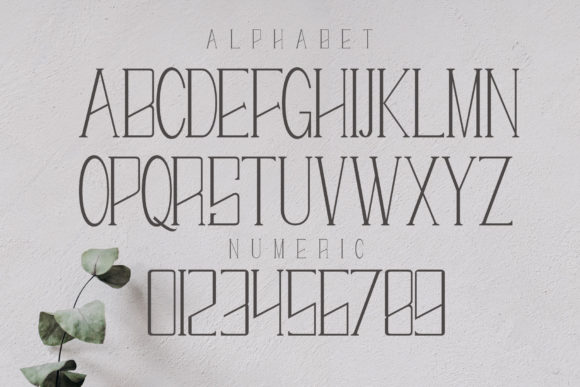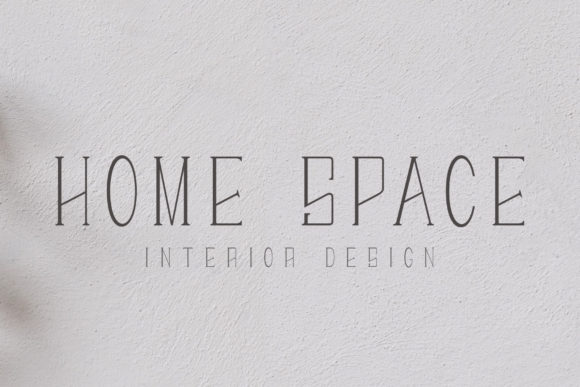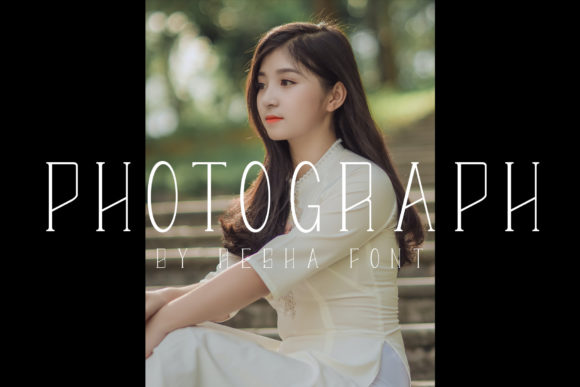
Introduction to Resha Font
Resha is a modern, elegant and tall serif font.
This font will add a unique and distinctive style to any design you want to create The only limit is your imagination.
Key Features of Resha Font
Why Choose Resha Font?
Resha Font offers exceptional quality and versatility, making it a valuable addition to your design toolkit. Whether you’re creating for personal projects or commercial use, Resha Font delivers professional results.